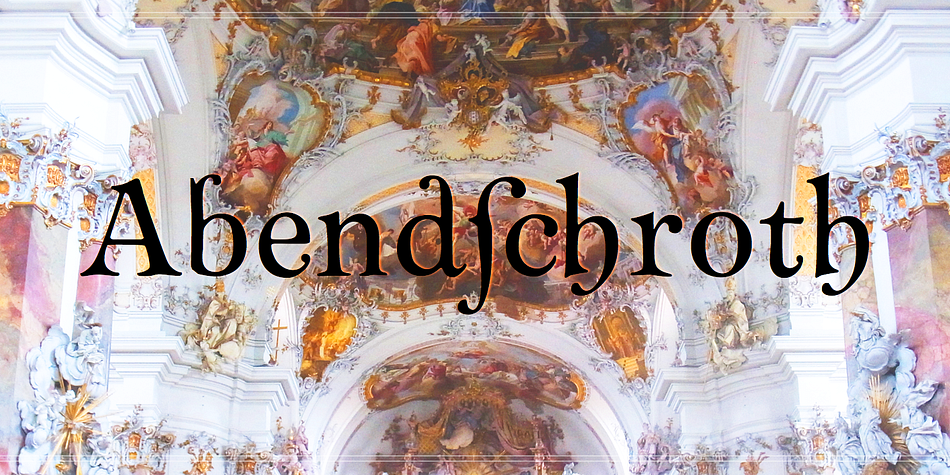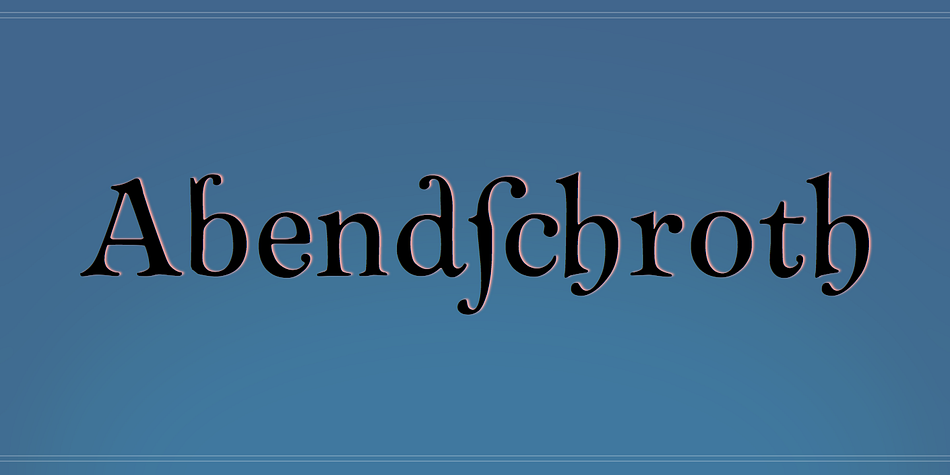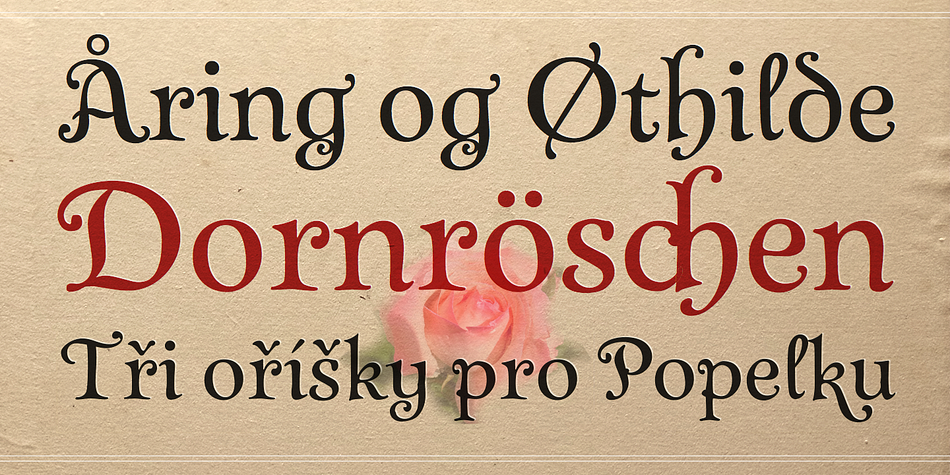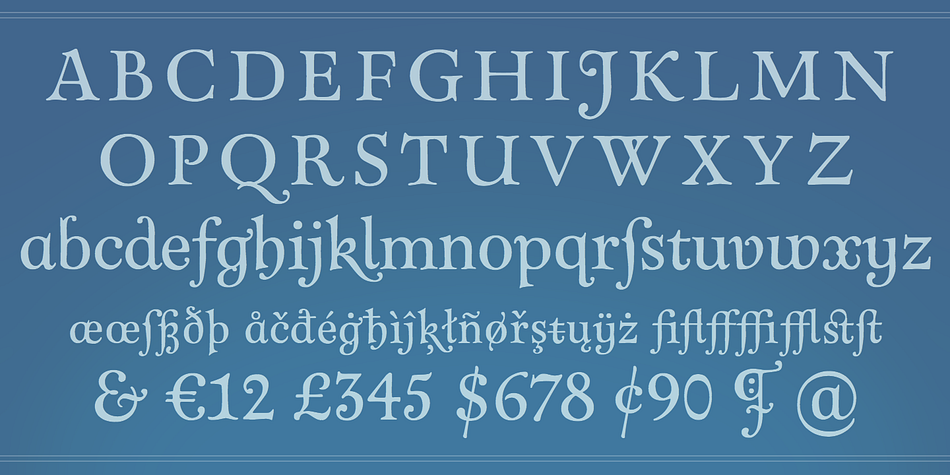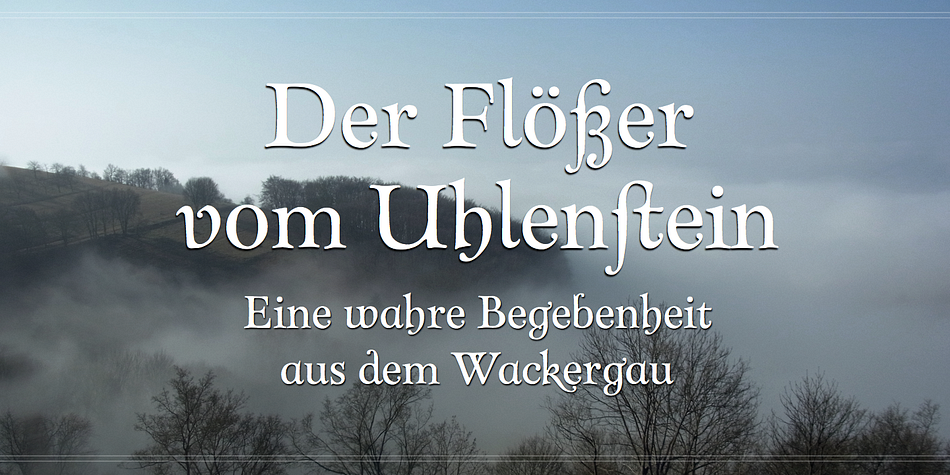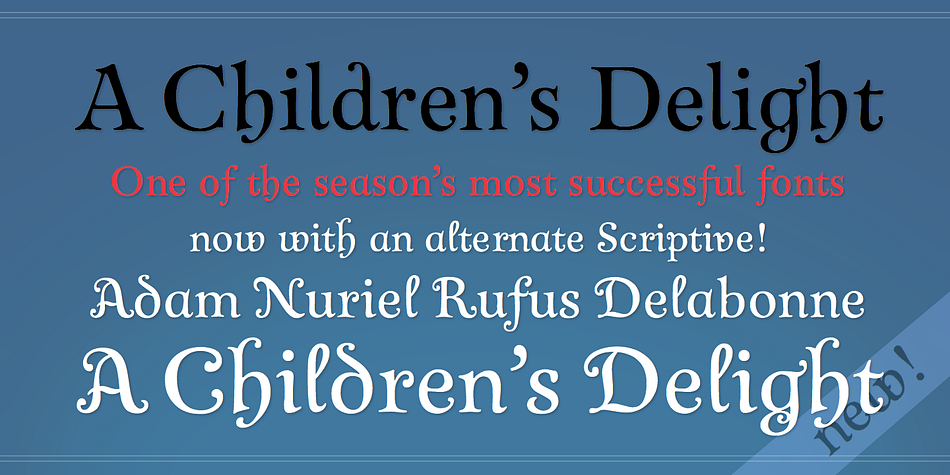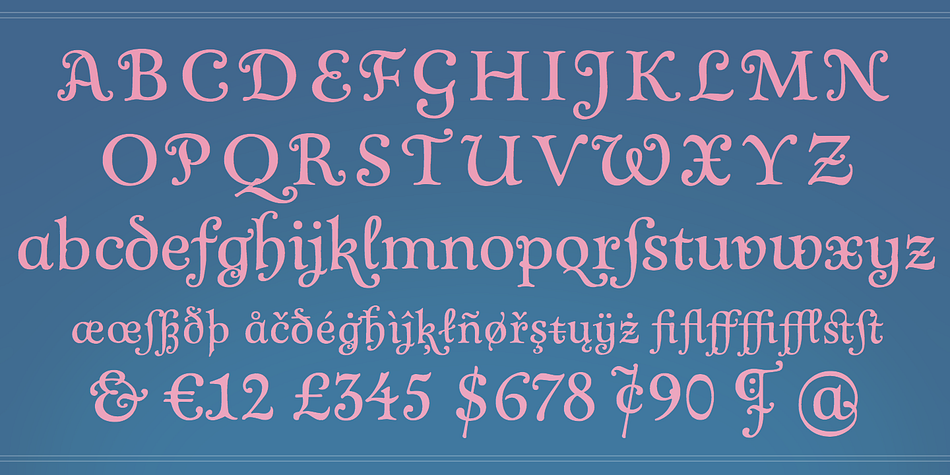
Designed by Andreas Stötzner, Abendschroth is a display serif font family. This typeface has three styles and was published by Andreas Stötzner.
Abendschroth is a wonderful dreamy and whimsical typeface for novel titlings and other fiction headline settings. Also a sophisticated choice for lullabies, girl’s literatur, murder poems, home made marmelade labeling, short stories and christmas gift books.
Abendschroth supports every Euro-Latin language.